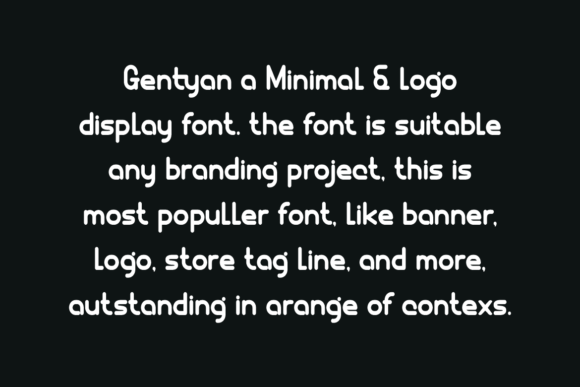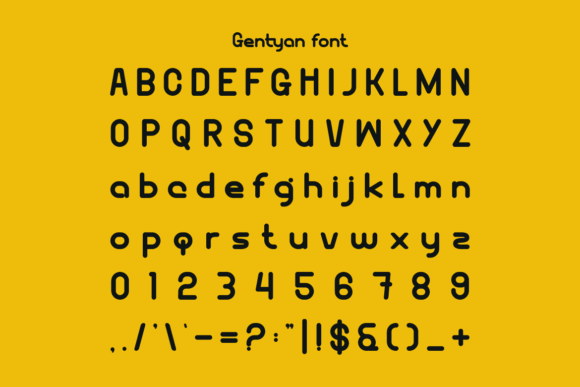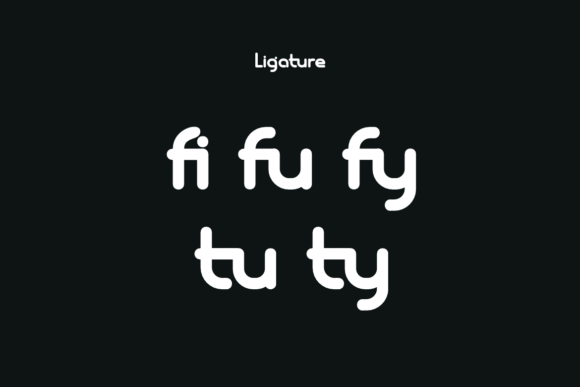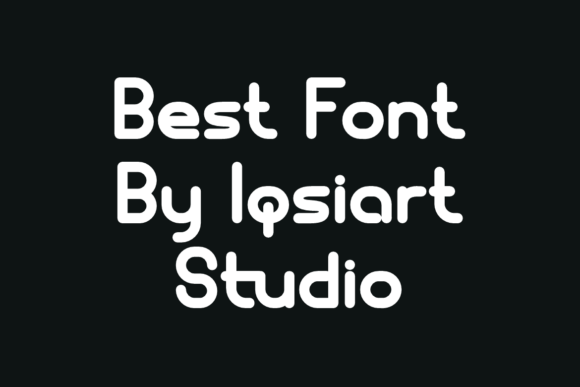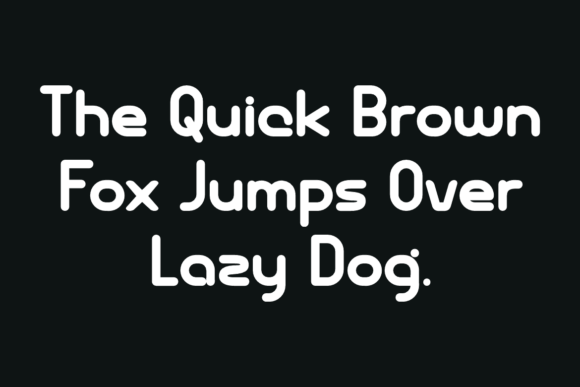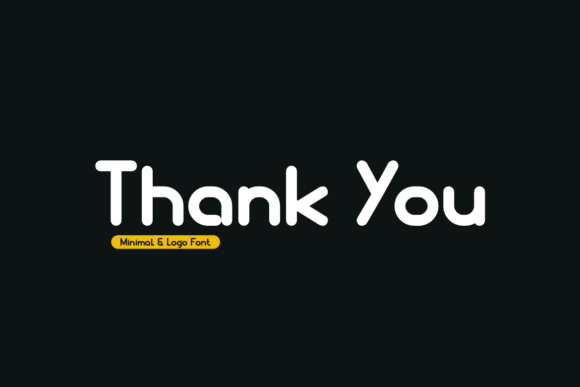
Gentyan Font: The Ultimate Choice for Modern Designers
In the world of typography, a good font can make all the difference in creating a stunning visual identity. For designers and crafters looking for a clean and modern font, Gentyan Font is an excellent choice. With its minimalist style, simple lines, and clear shapes, Gentyan Font is perfect for creating sleek, contemporary logos that stand out.
What is Gentyan Font?
Gentyan Font is a modern sans-serif font designed with simplicity and elegance in mind. Its clean lines and minimalist style make it an ideal choice for designers who want to create a professional and sophisticated look. The font features a simple yet distinctive design, making it easy to read and recognize.
Key Features of Gentyan Font
- Clean and Modern Design: Gentyan Font boasts a clean and modern design that is perfect for creating contemporary logos, headings, and body text.
- Minimalist Style: The font’s minimalist style ensures that your designs look sleek and uncluttered, making it ideal for designers who want to create a simple yet effective visual identity.
- Simple Lines and Clear Shapes: Gentyan Font features simple lines and clear shapes, making it easy to read and perfect for creating logos, headings, and body text.
- High Versatility: The font is highly versatile and can be used for a wide range of design projects, from logos and branding to websites and marketing materials.
Benefits of Using Gentyan Font
There are several benefits to using Gentyan Font in your design projects. Some of the key advantages include:
- Improved Readability: Gentyan Font is designed to be easy to read, making it perfect for body text and other applications where readability is crucial.
- Enhanced Visual Appeal: The font’s clean and modern design ensures that your designs look visually appealing and engaging.
- Flexibility: Gentyan Font can be used for a wide range of design projects, from logos and branding to websites and marketing materials.
- Unique and Distinctive: The font’s simple yet distinctive design ensures that your designs stand out from the crowd.
- Logos and Branding: Use Gentyan Font to create sleek and modern logos that reflect your brand’s values and personality.
- Websites: The font is perfect for use on websites, where its clean and modern design can help to improve user experience.
- Marketing Materials: Use Gentyan Font in your marketing materials, such as brochures, flyers, and business cards, to create a professional and cohesive look.
- Headings and Body Text: The font is suitable for use as both headings and body text, making it a versatile addition to your design toolkit.
In conclusion, Gentyan Font is a clean and modern font with a minimalist style that is perfect for creating sleek, contemporary logos and designs. Its simple lines and clear shapes make it easy to read, while its high versatility ensures that it can be used for a wide range of design projects. Whether you’re a designer or crafter, Gentyan Font is an excellent choice for anyone looking to create a professional and sophisticated visual identity.